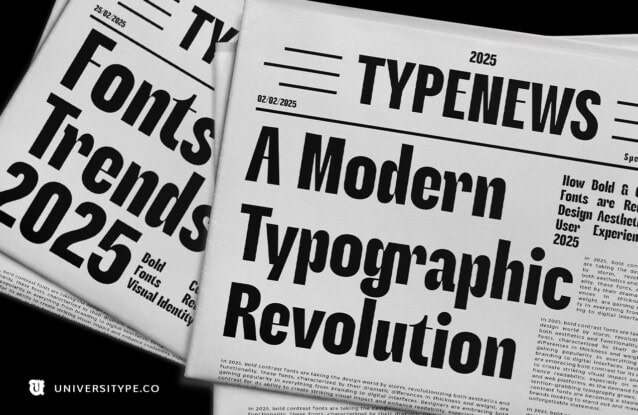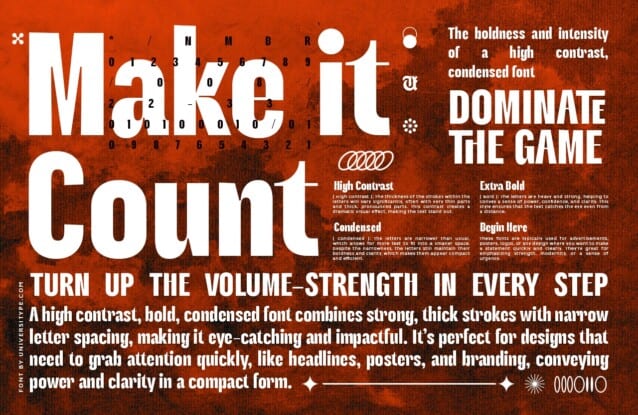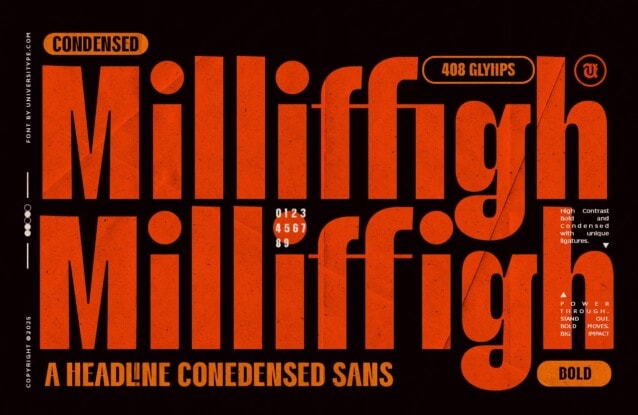
UT Milliffigh Font
UT Milliffigh Font is a condensed font that exudes modern style and luxury. With razor-sharp contrast and a tightly condensed silhouette, this font refuses to blend in. Ideal for headlines, branding, and digital interfaces, UT Millifigh serves drama without dropping readability, perfect for projects that demand to be seen and understood.